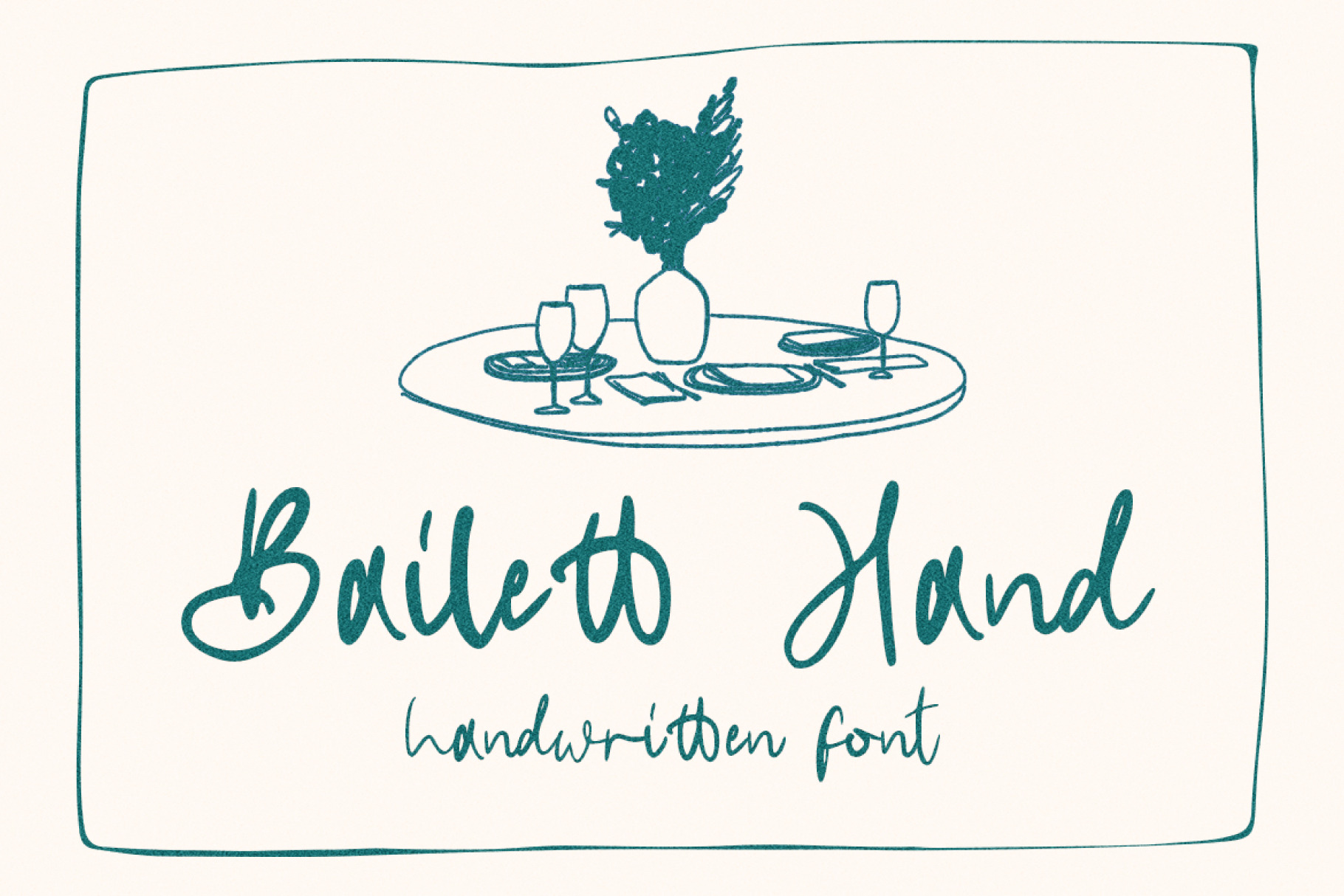
Bailett Hand - Handwritten Font
Bailett Hand is a quirky handwritten script font that stands out with its natural, unpolished look. Perfect for projects that need a personal and authentic touch, this font is ideal for wedding invitations, quotes, social media posts, and more. Each character is uniquely hand-drawn, adding a raw and genuine feel to your designs.
Add a touch of spontaneous charm with Bailett Hand.
- Features: Uppercase, Lowercase, Numeral, Punctuation, Multilingual & Ligatures.